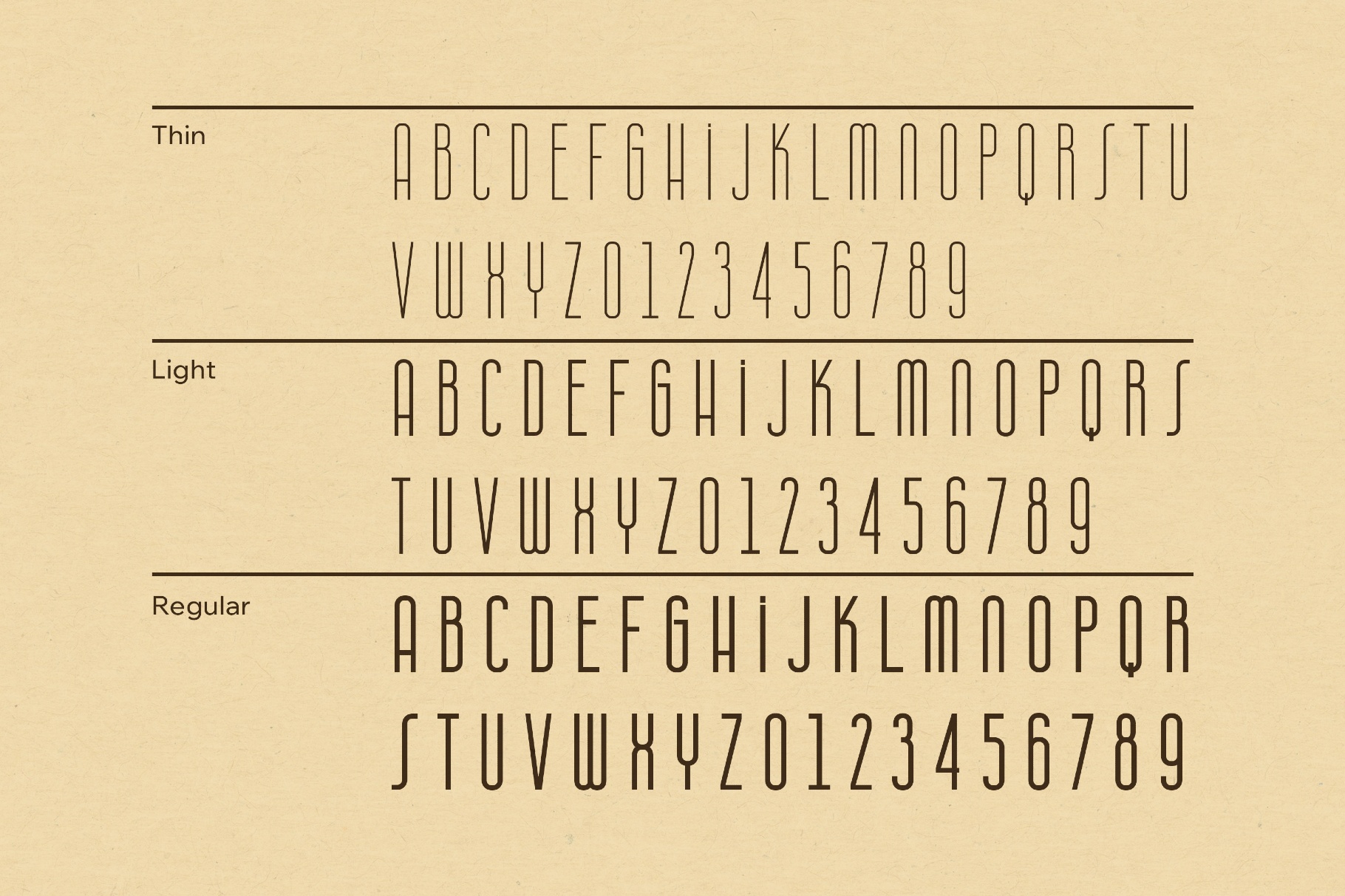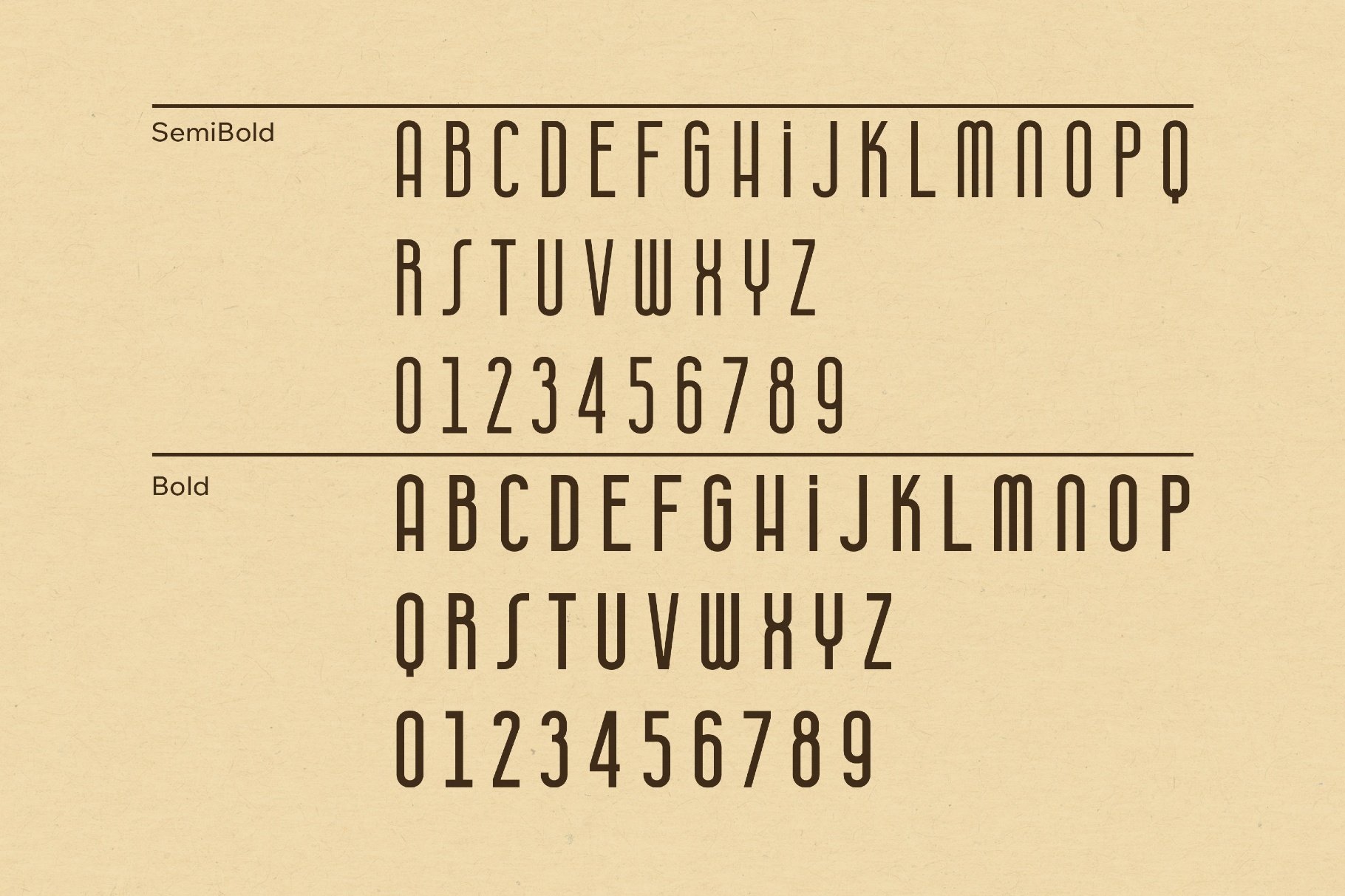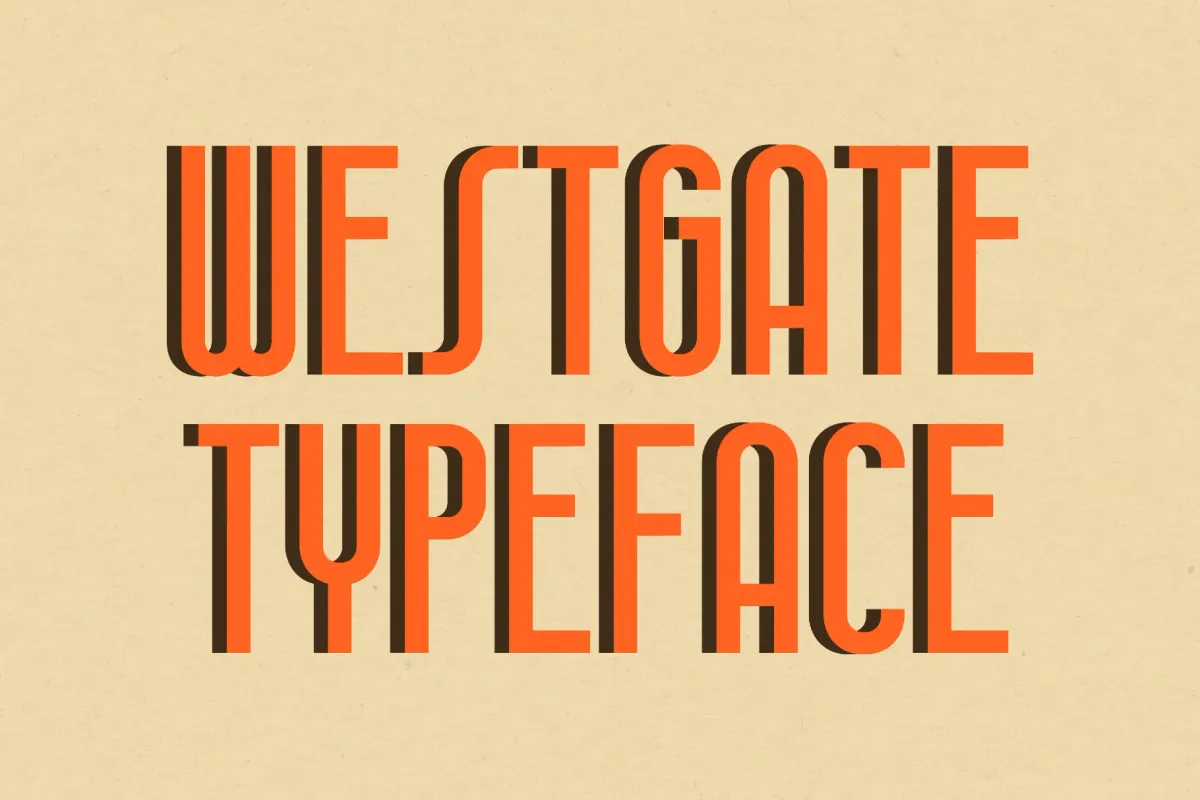
Westgate Typeface
Westgate balances slabby letterforms with the bold drama of classic Western posters and early 20th-century railway signage. This confident, condensed font is a strong choice for poster headlines, logotypes, packaging labels, wayfinding graphics, magazine section titles, apparel prints, and social assets.
- Five styles.
- Uppercase letters only.
- Multilingual coverage across extended Latin scripts.